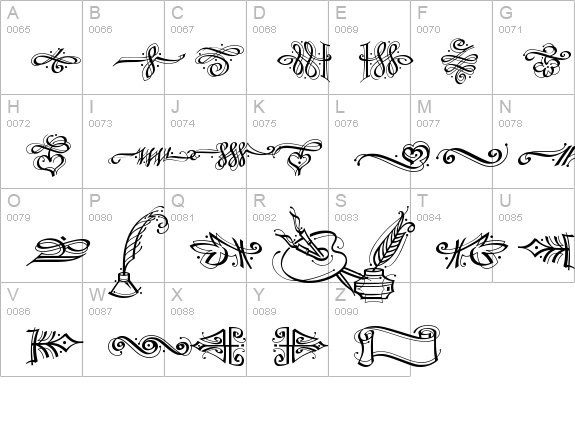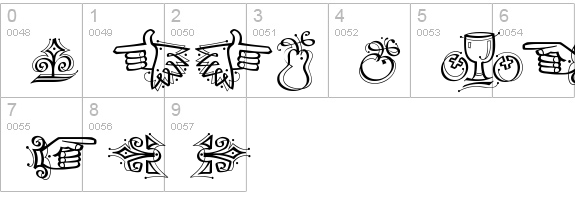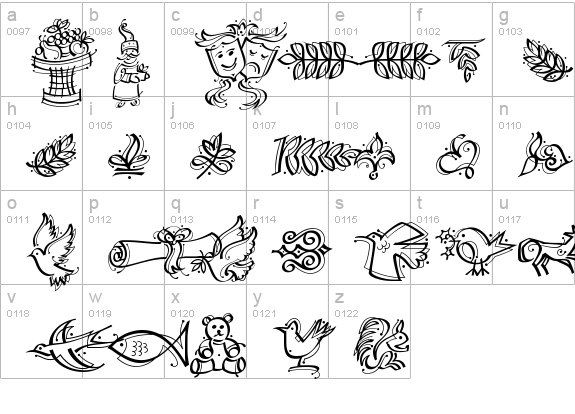
DF Calligraphic Ornaments LET Plain:1.0 is a beautifully crafted font that exudes elegance and sophistication. Its intricate details and ornate designs make it perfect for adding a touch of luxury to any project. This font is ideal for creating stunning invitations, wedding stationery, and other special occasion materials. What makes DF Calligraphic Ornaments LET Plain:1.0 even more appealing is that it is available for free download at FontsMarket.com. Whether you are a professional designer or a DIY enthusiast, this font is a valuable addition to your collection. Don't miss out on the opportunity to enhance your creative projects with this exquisite font. Download DF Calligraphic Ornaments LET Plain:1.0 today and let your creativity soar!